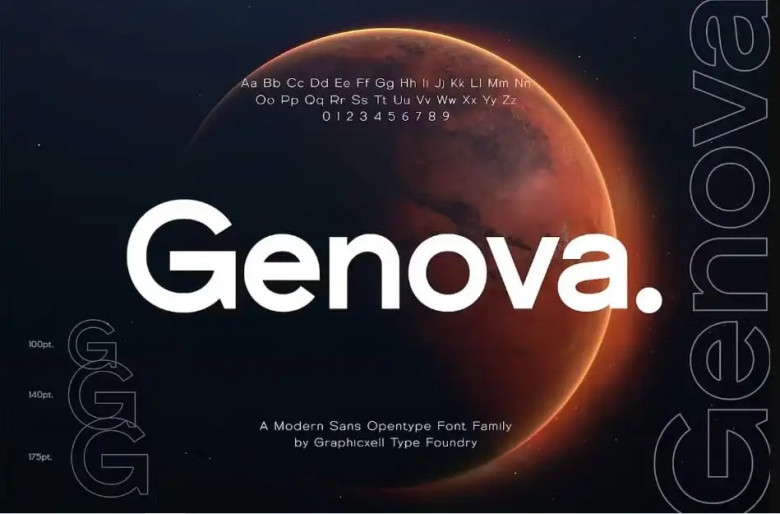
Genova Font
The Genova Sans Font Family was created by Gene Bubany based on the famous starkly illegible vidaa logo and is perfect for use in templates, brochures, videos, branding, advertising, logo creation, and invitation cards, layout design, elegant and beautiful artwork., etc.
Genova Sans Serif Typeface